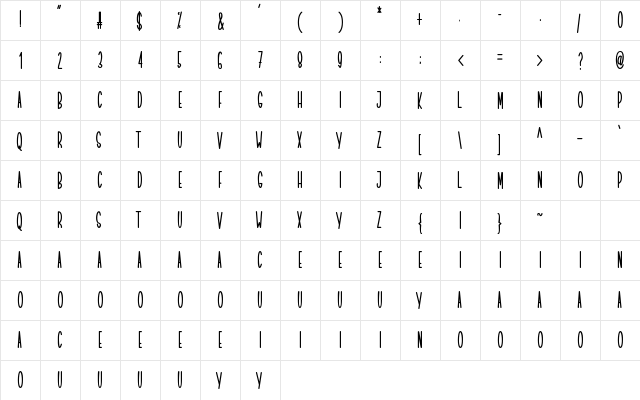
Christmas Gift Regular
| Foundry | Farz Studio |
| Designer | Farz Studio |
Design Context for Christmas Gift Typeface
Christmas Gift offers clean, dependable letterforms without strong stylistic allegiance, making it a practical choice for designers who need flexibility.